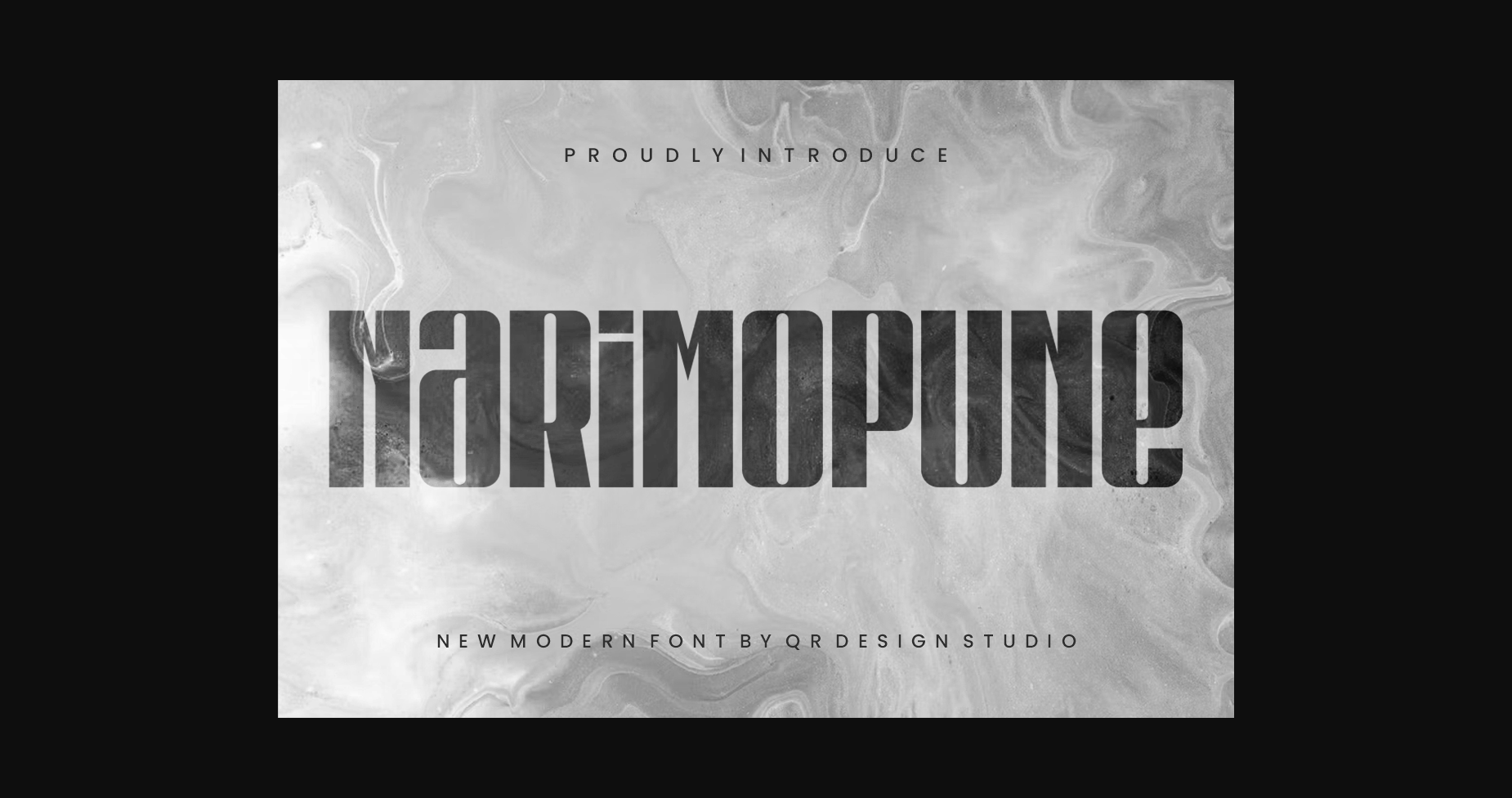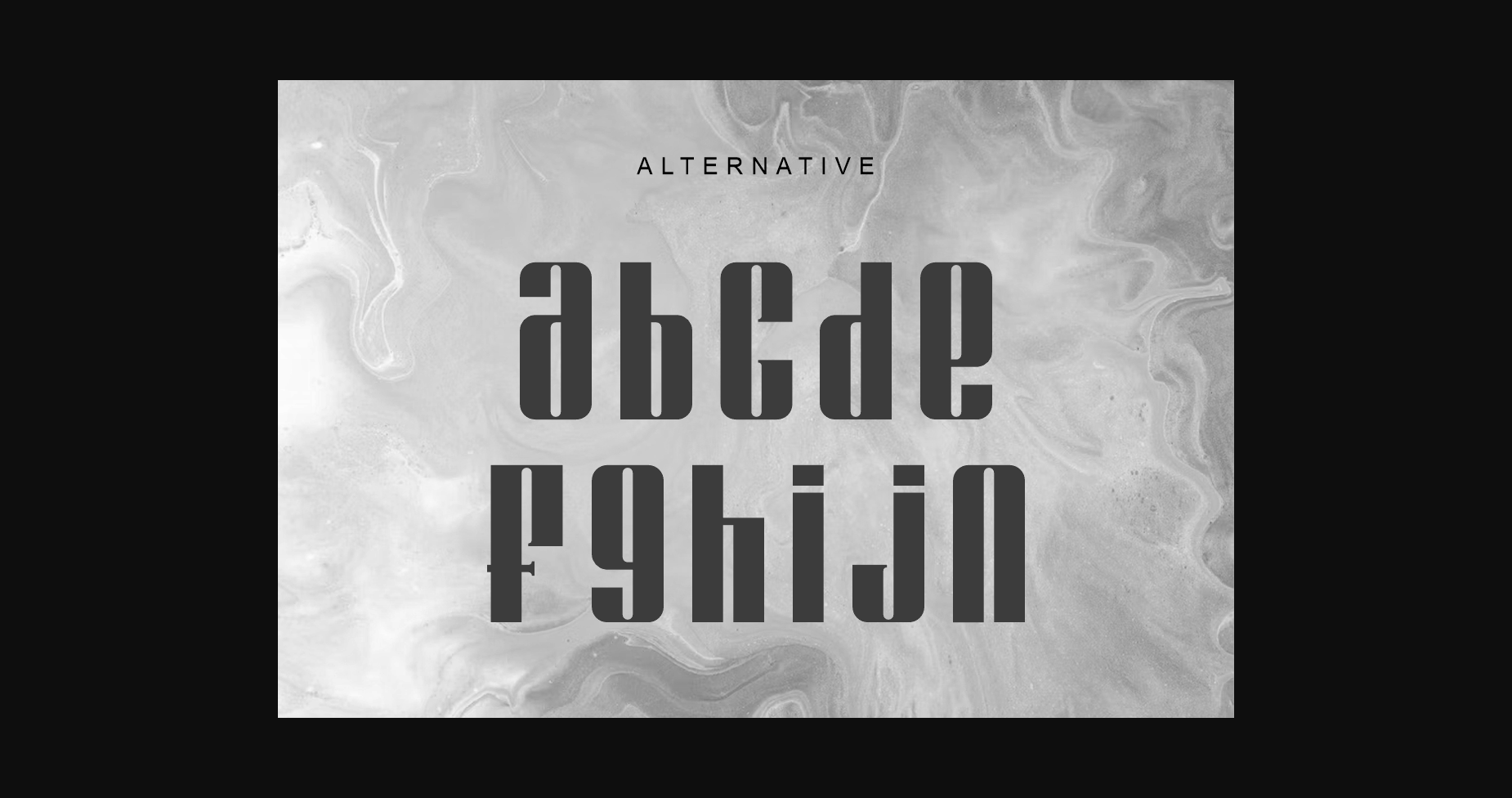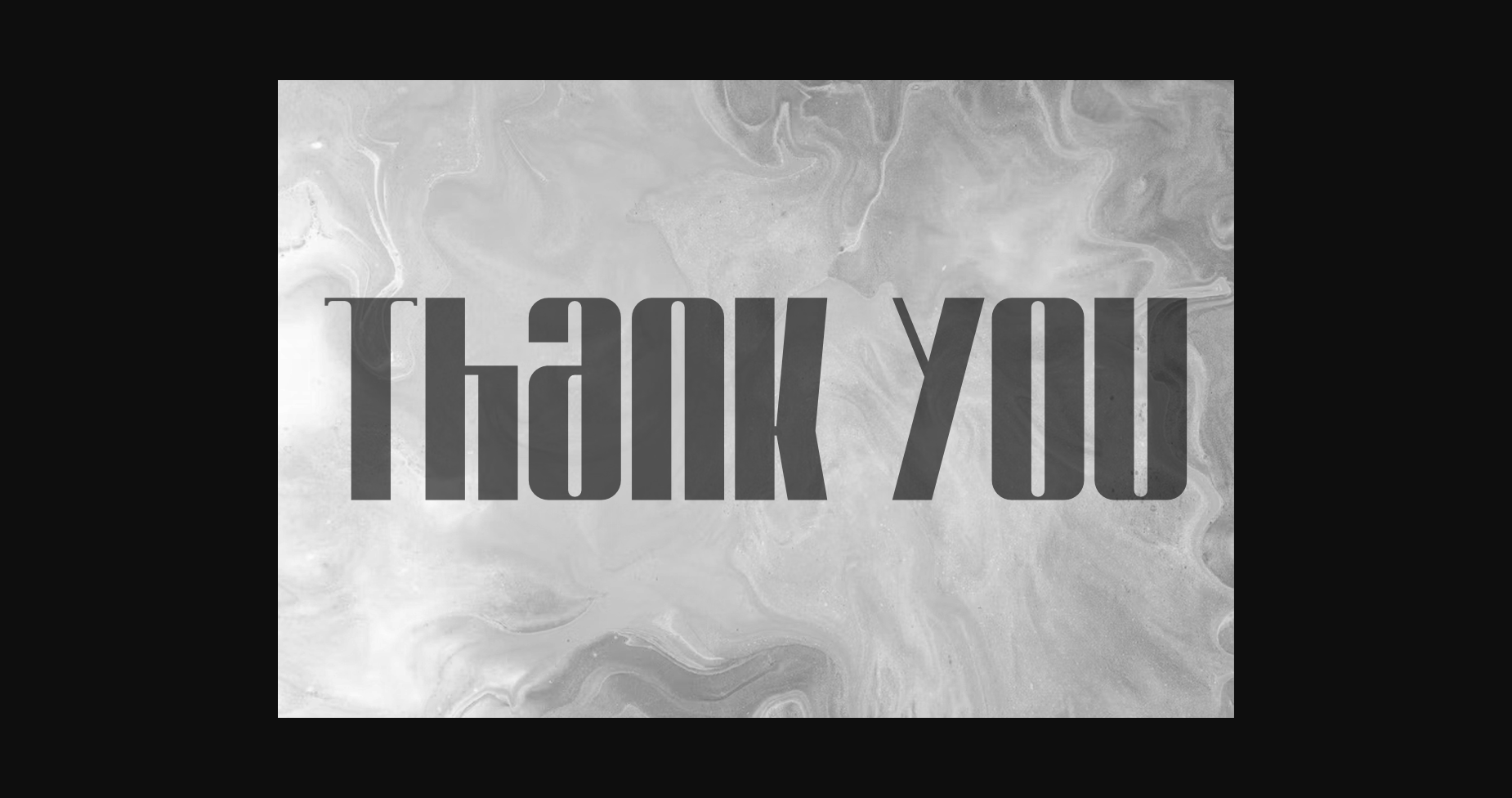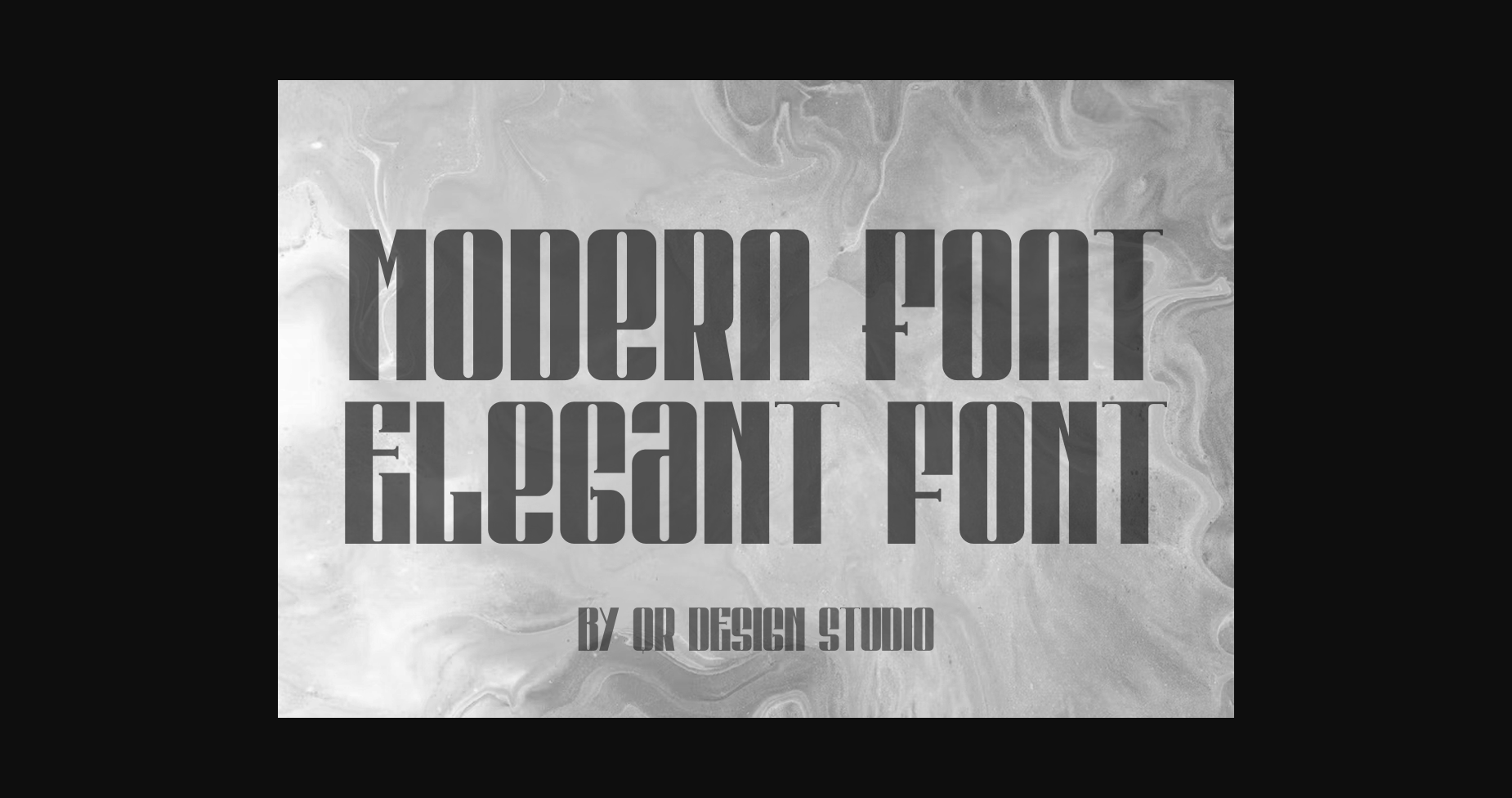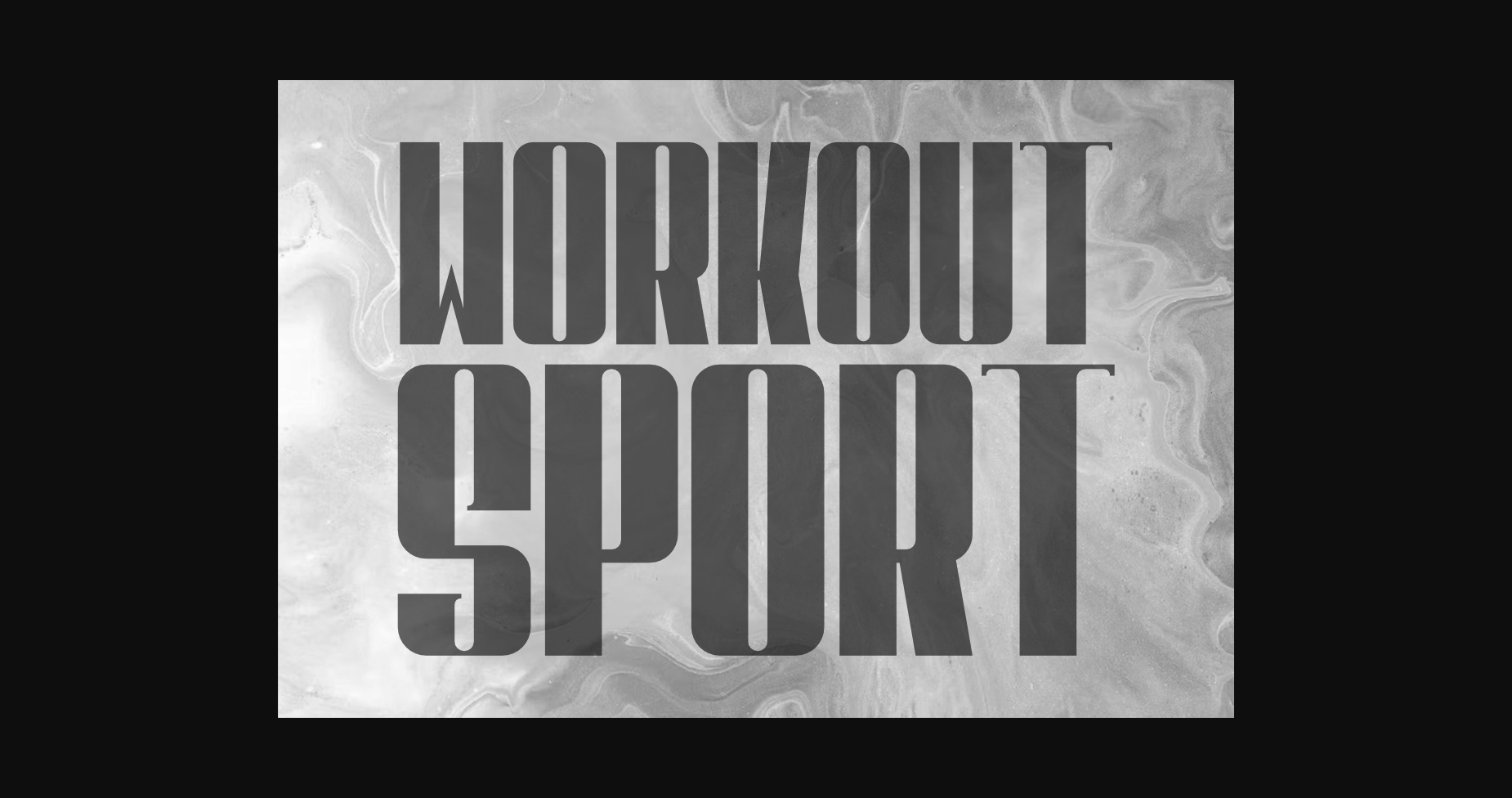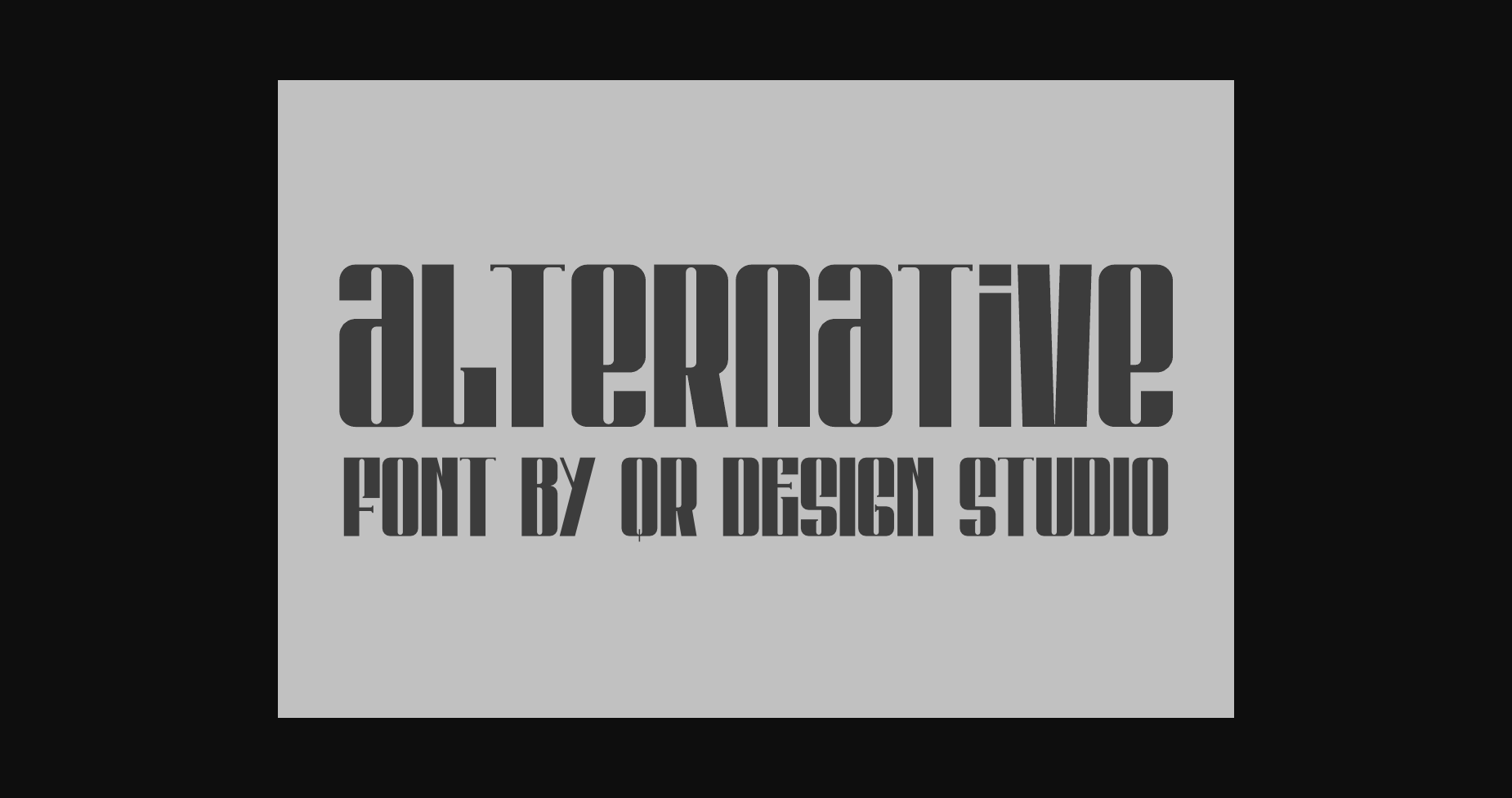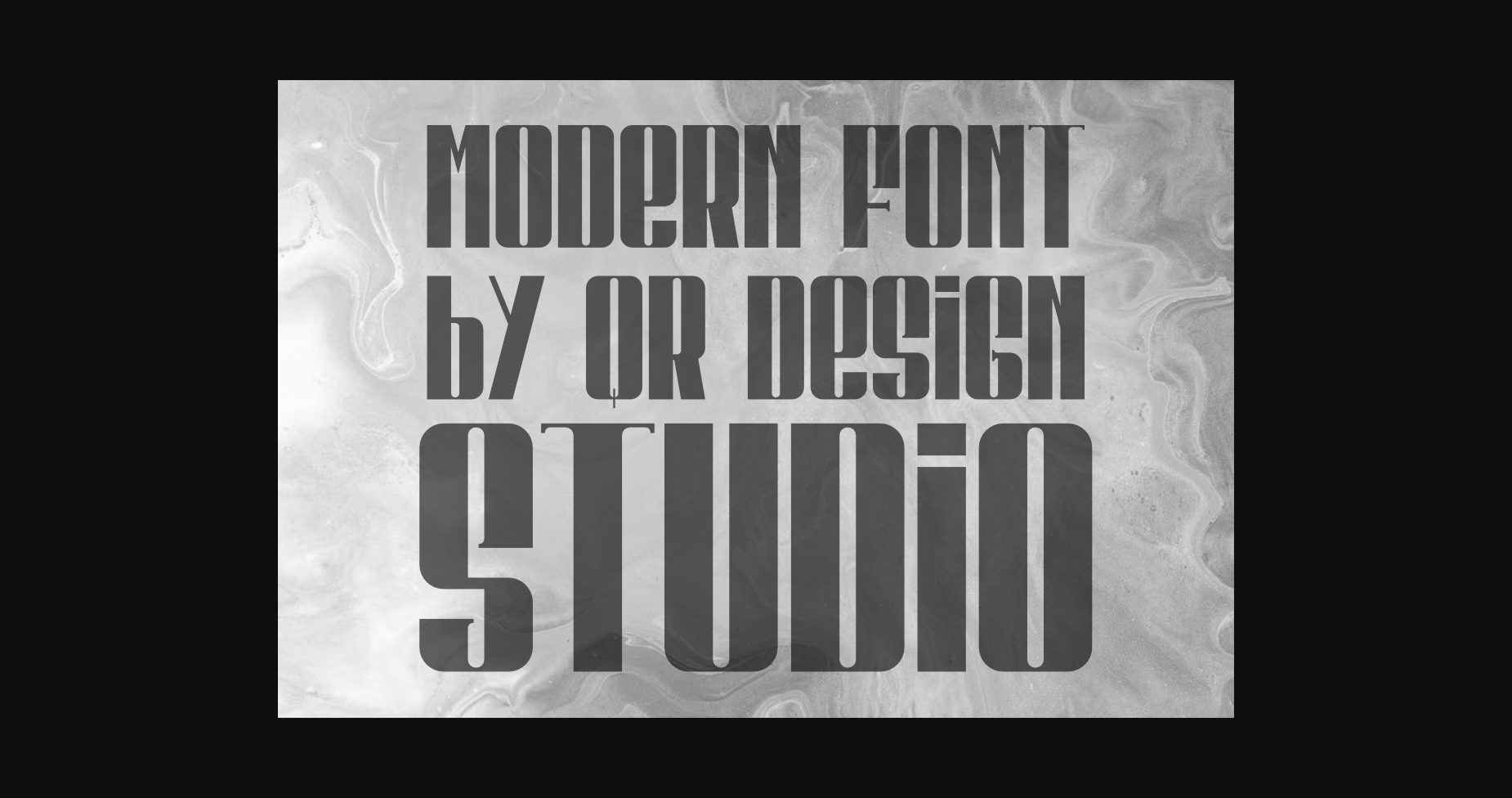
About Narimopune Font
Narimopune Font is a bold and authentic display font.
The font is suitable for any branding project like logos, sports, and many more.